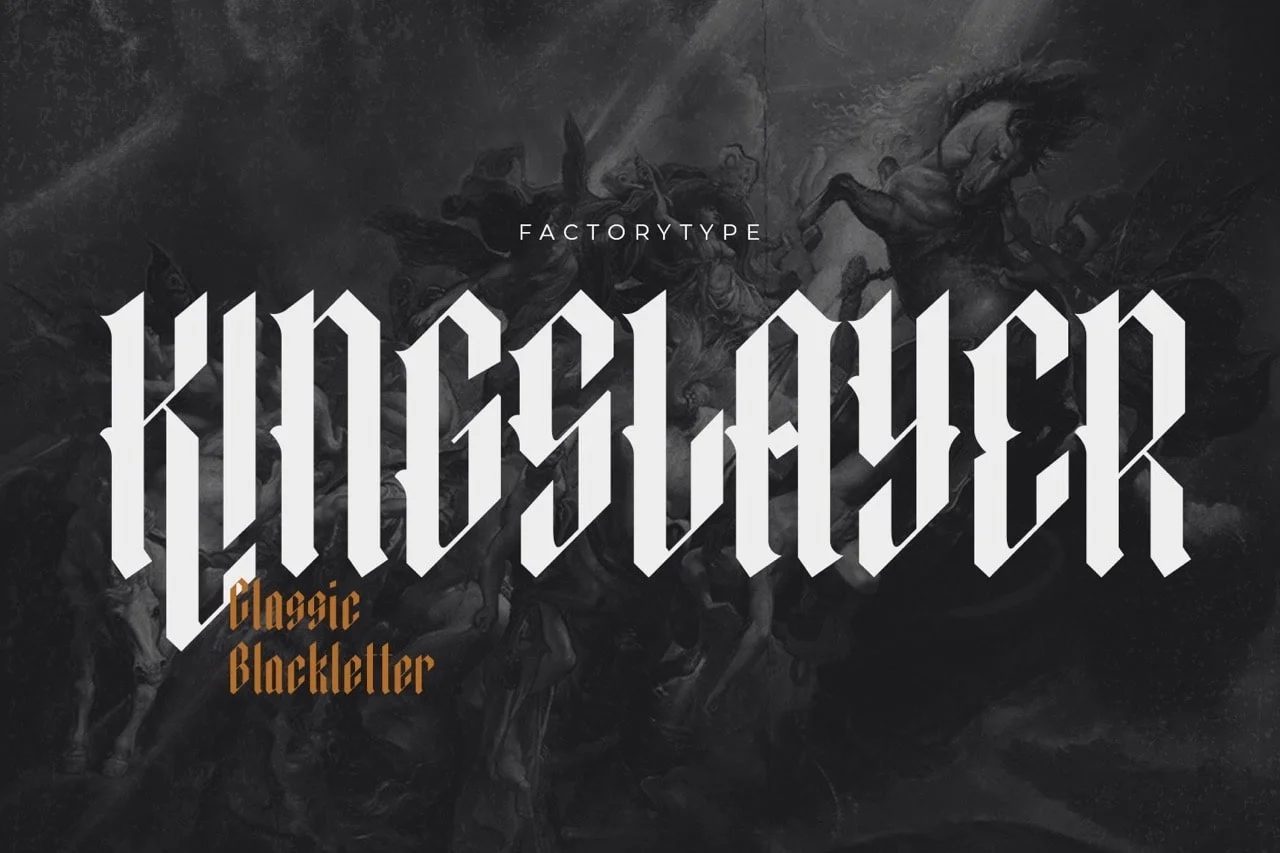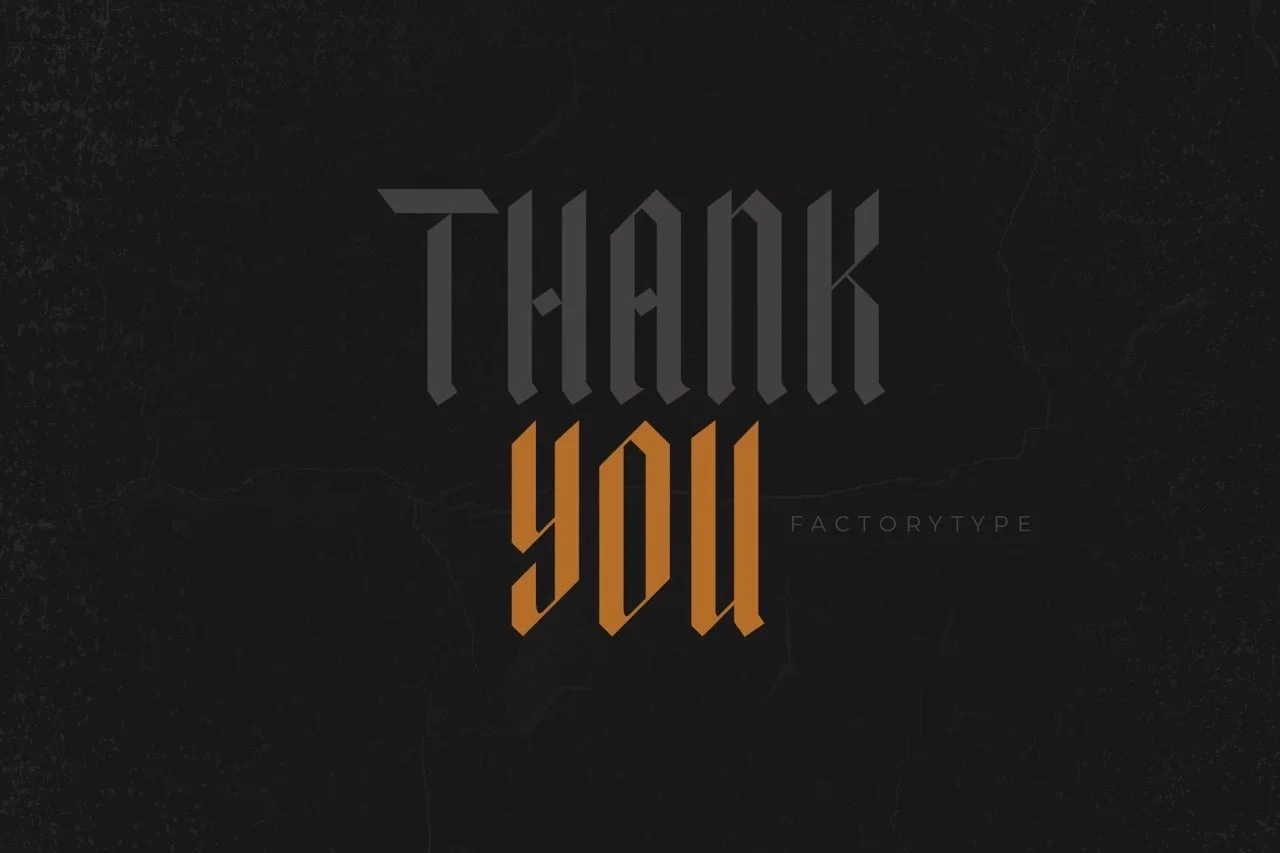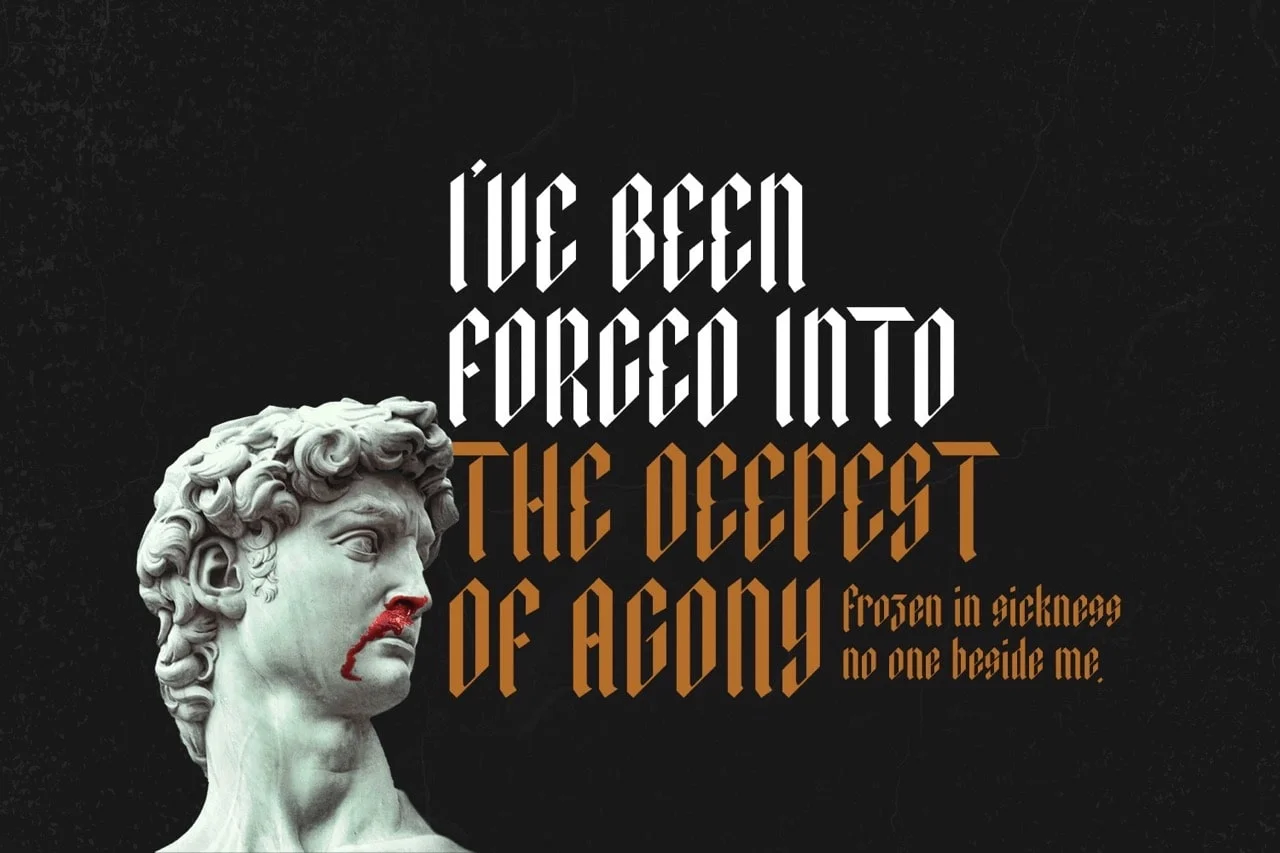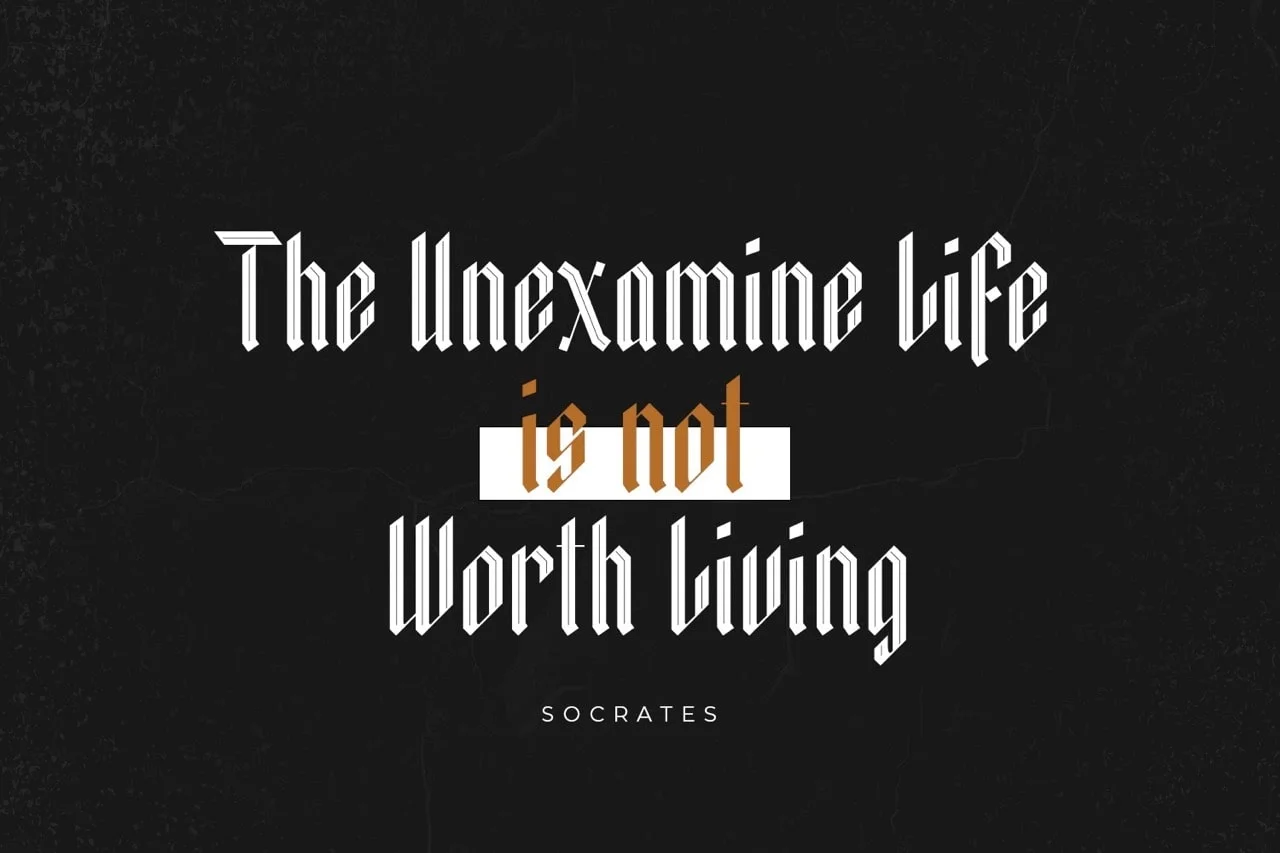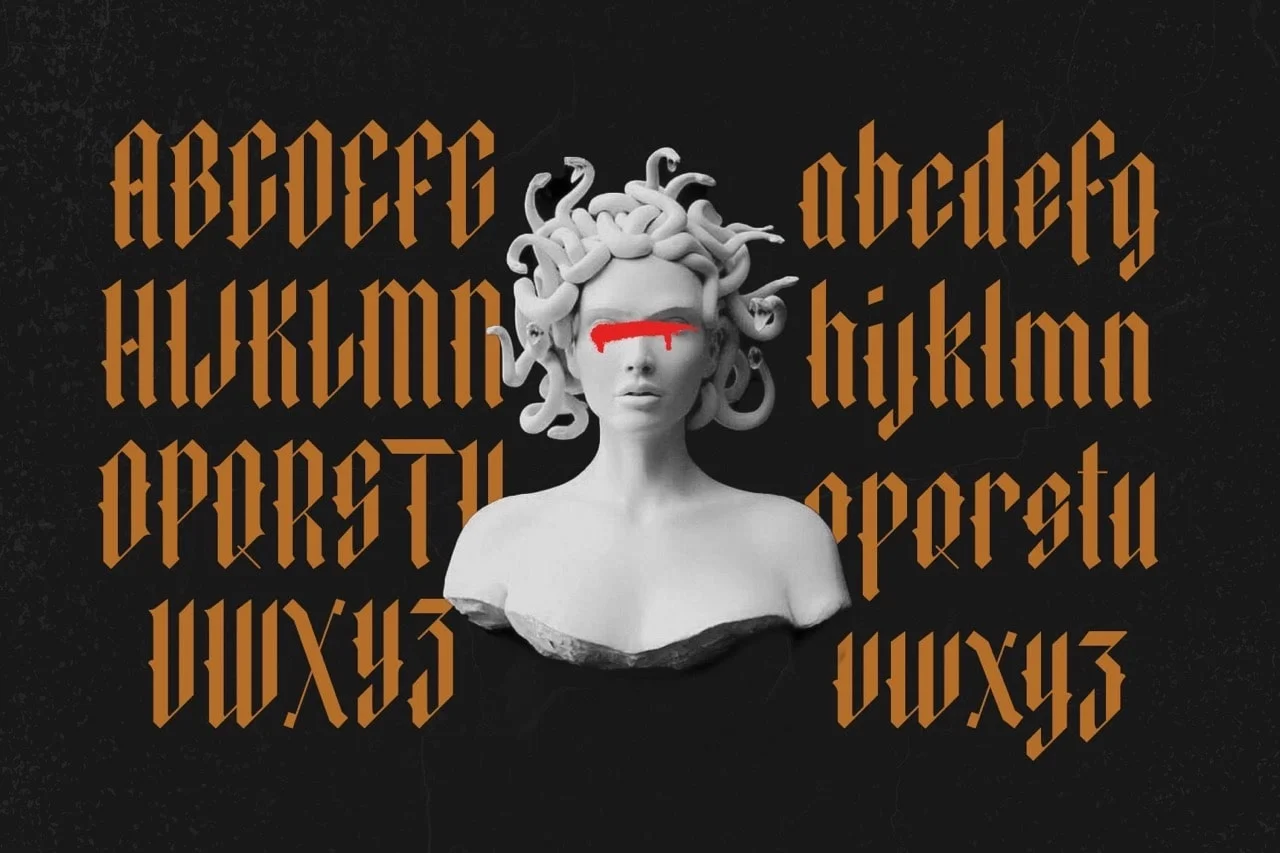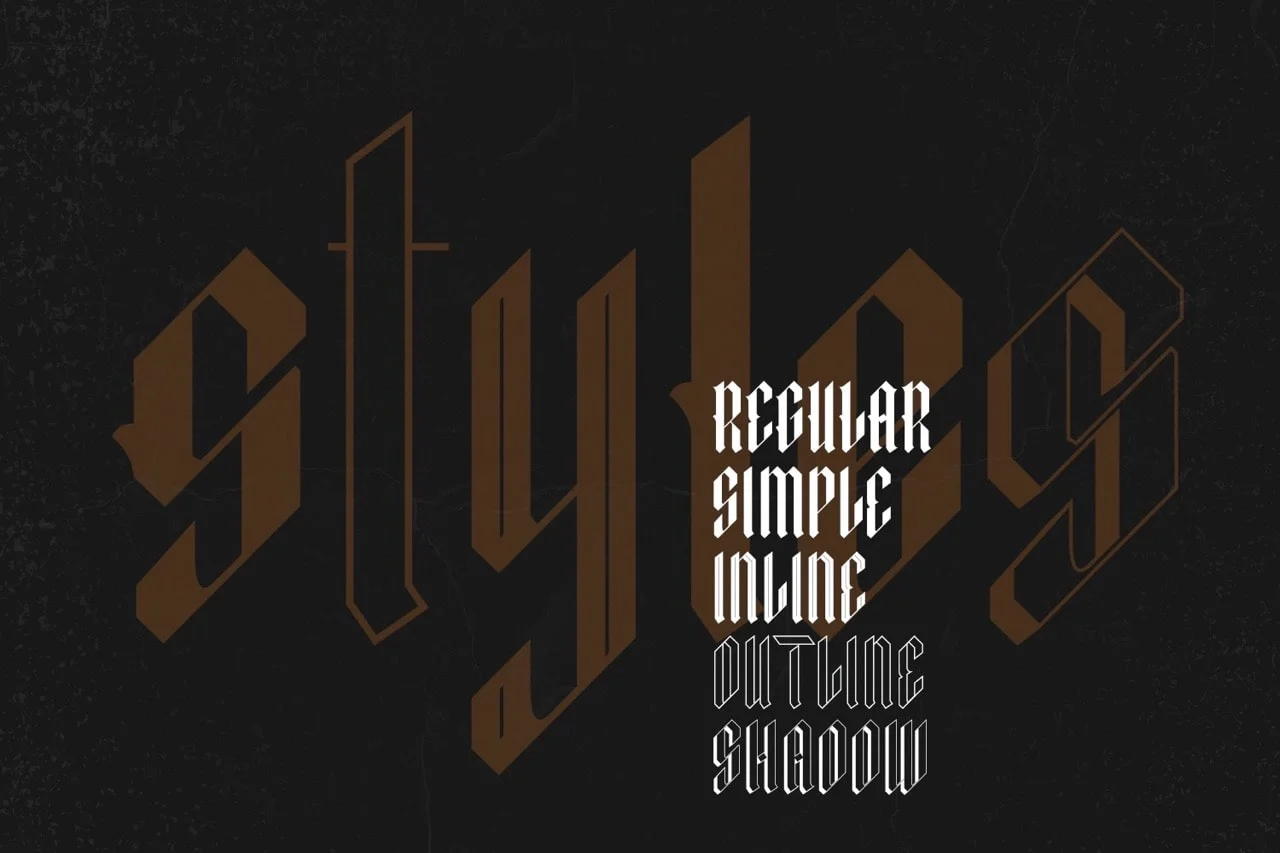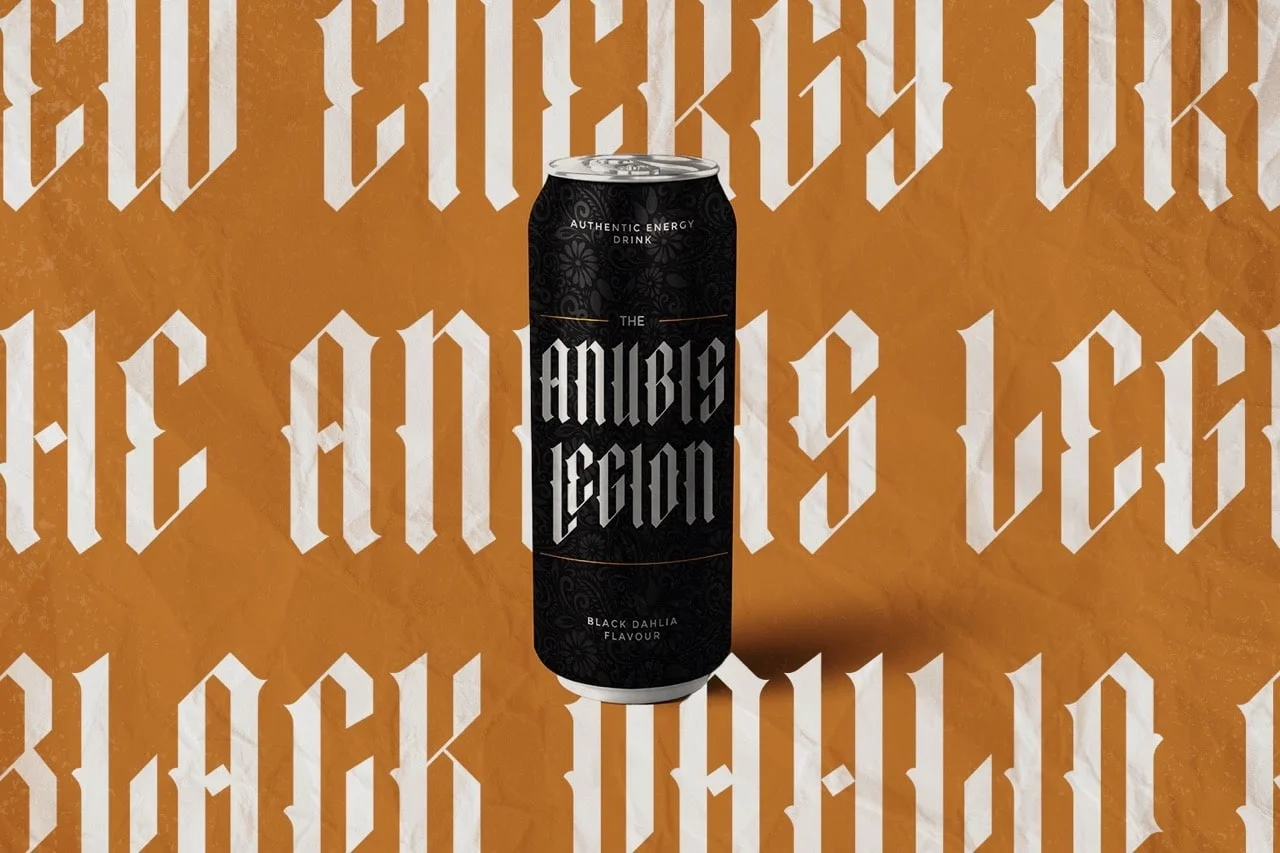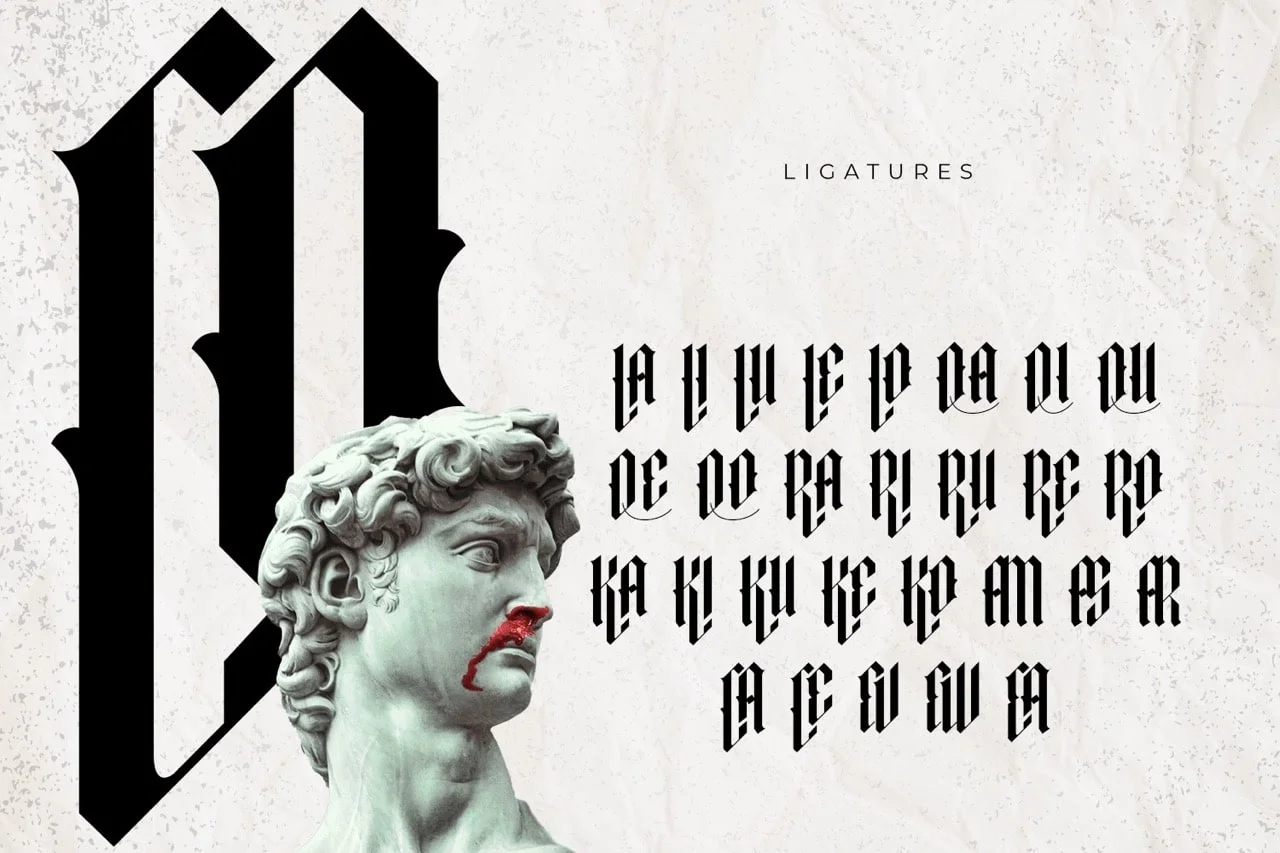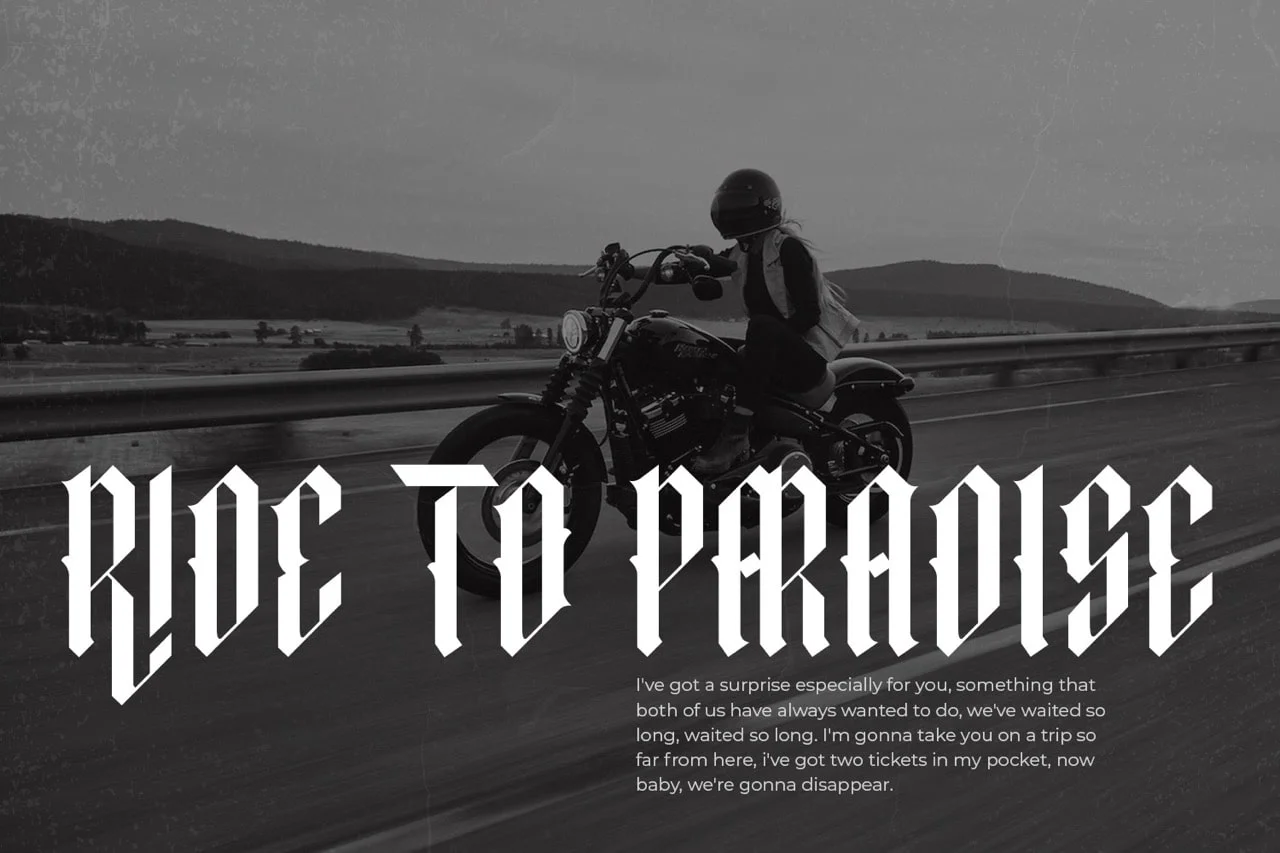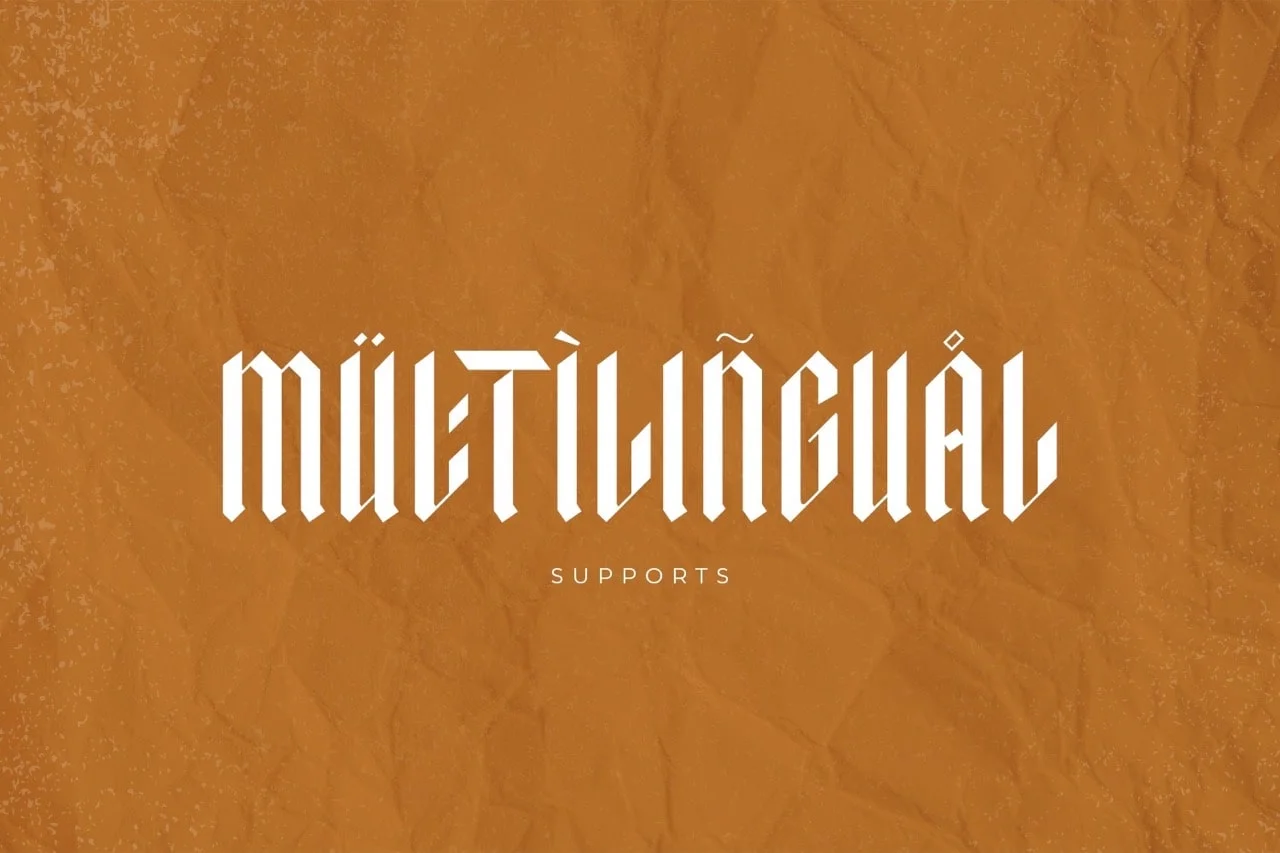
Kingslayer: A Thoughtful Expressive Blackletter for Bold Communication
Meet Kingslayer, a thoughtful and expressive typeface designed to help your message stand out with confidence and heart. Inspired by the deep history of German Fraktur and Swedish blackletter, this typeface balances ancient structural lines with a modern, elegant energy.
We crafted this unique 5-style family to be a reliable and sincere tool for your bold branding, creative posters, and high-impact headlines. We engineered it with a focus on stylistic ligatures and alternates, ensuring that your work feels both structurally sound and deeply original.
FEATURES
- 5 Unique Styles: Regular, Inline, Outline, Shadow, and Simple for versatile creative layering.
- Technical: Includes stylistic ligatures and alternate glyphs to help you create custom-tailored designs.
- Ideal for: Logo design, music branding, apparel graphics, and bold editorial statements.
- Language: Reliable multilingual support for global accessibility.
Kingslayer Blackletter